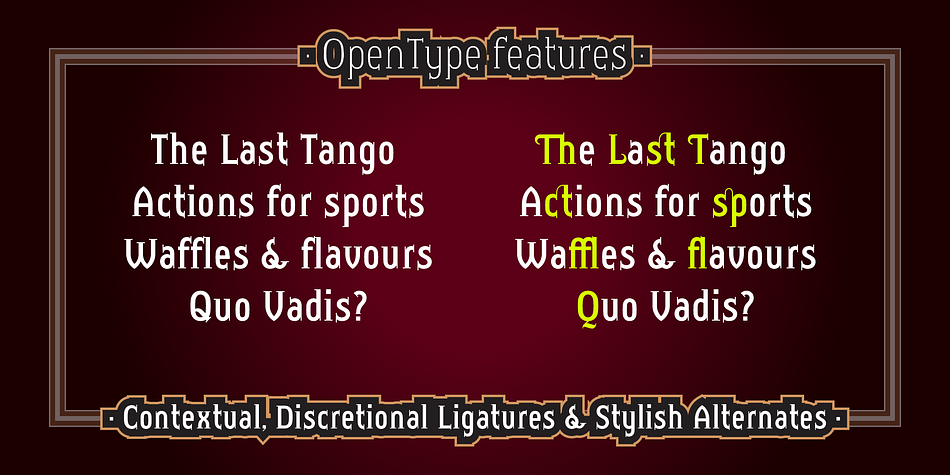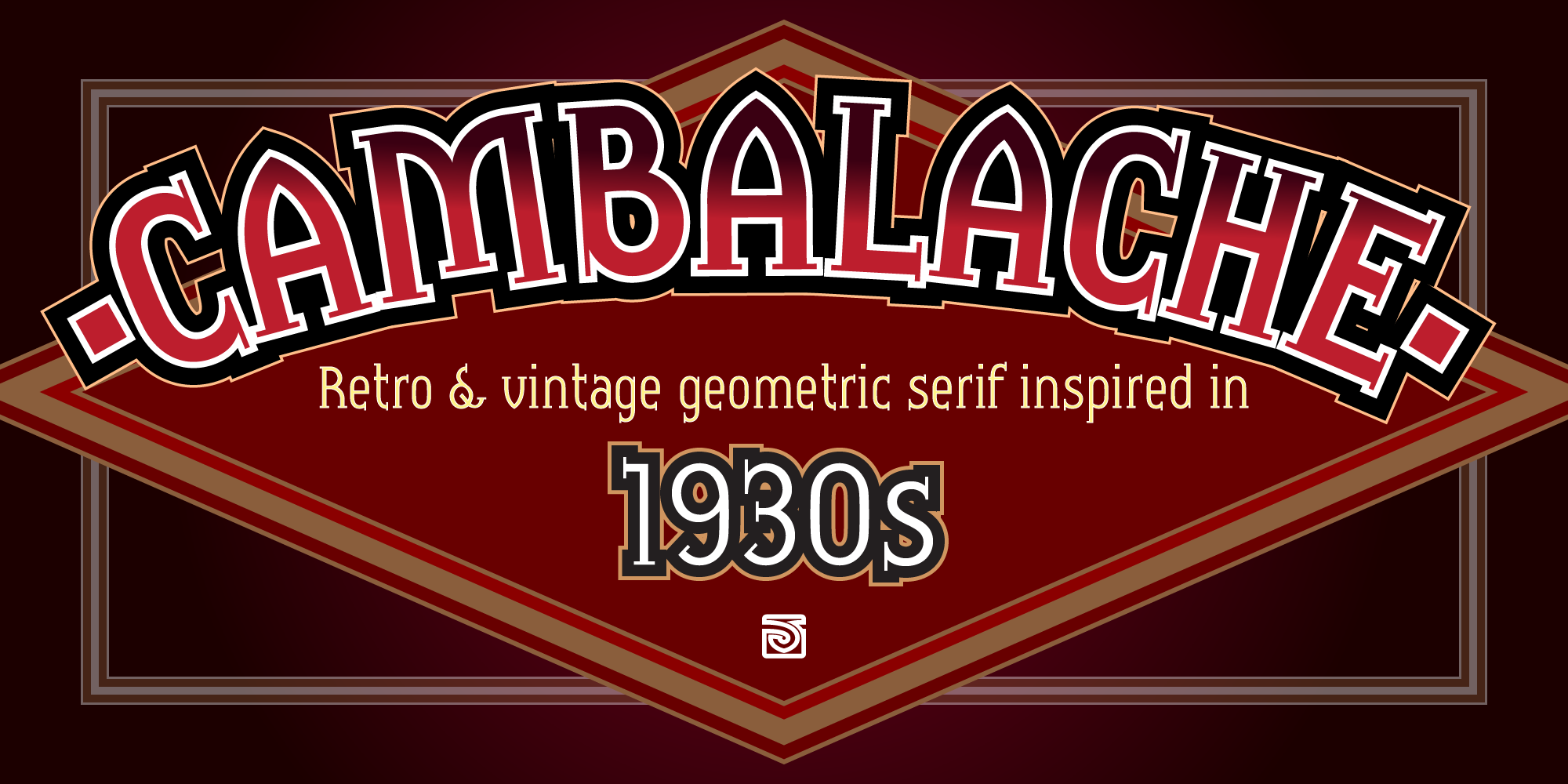
Cambalache
Designed by John Beltrán, Cambalache is a serif font family. This typeface has four styles and was published by John Vargas Beltrán.
The idea for Cambalache was conceived back in 2008 and was to create a geometrical font based on tangential modules into structure. The serif would be arranged, looking to approach to the lettering shapes. The creative concept has a feel from the mid-30s of last century, reaching a taste of retro and vintage style. Includes oldstyle numbers, slashed zero, standard and discretional ligatures. On June of 2024 a new weight variation was added: ExtraLight.